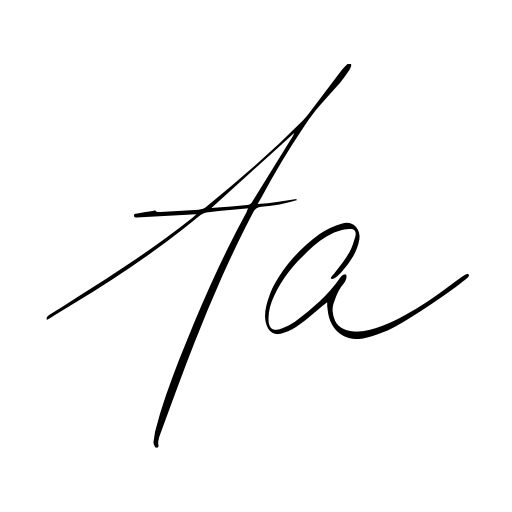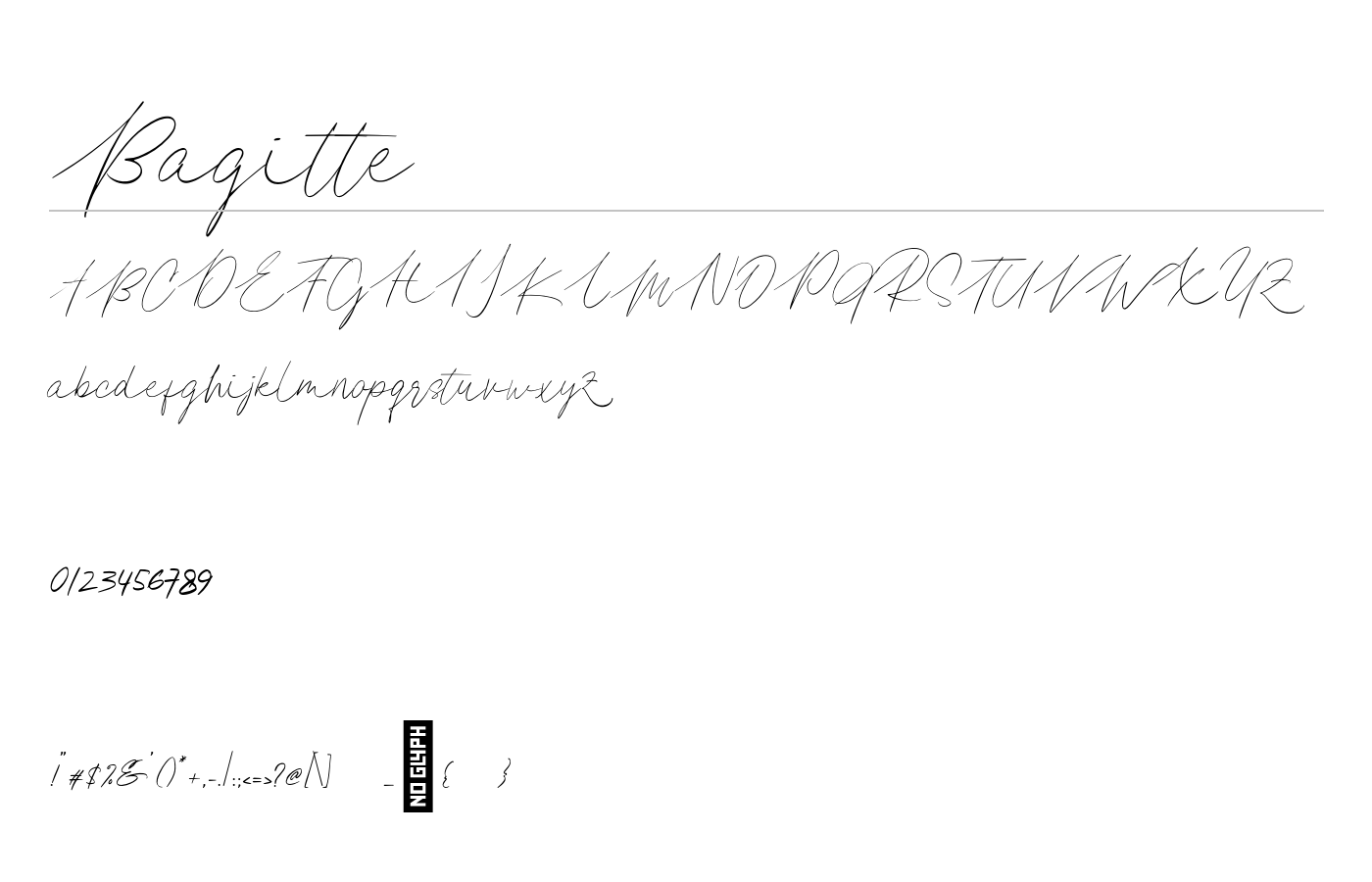
Bagitte is a delicate, handwritten script font featuring a slender, fluid design with elegant, slightly slanted letterforms. Its fine, airy strokes and natural flow give it a graceful, personal touch, making it ideal for invitations, branding, and creative projects that seek a sophisticated yet approachable feel. This font works beautifully where a soft, intimate expression is desired, especially in fashion, beauty, and lifestyle contexts.
Bagitte Font
About Bagitte Font
| Font family | Bagitte Font |
| Designer | Ahmad Sidiq |